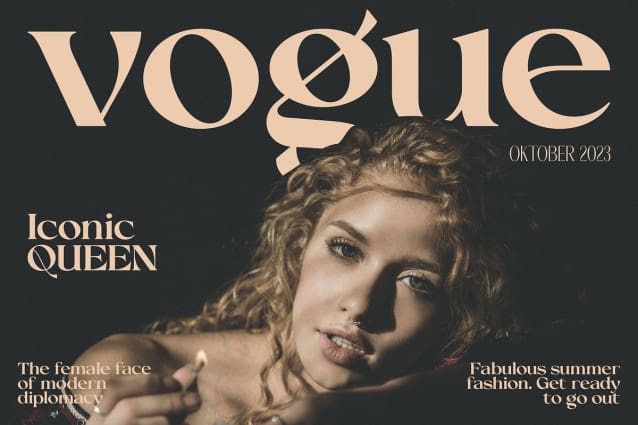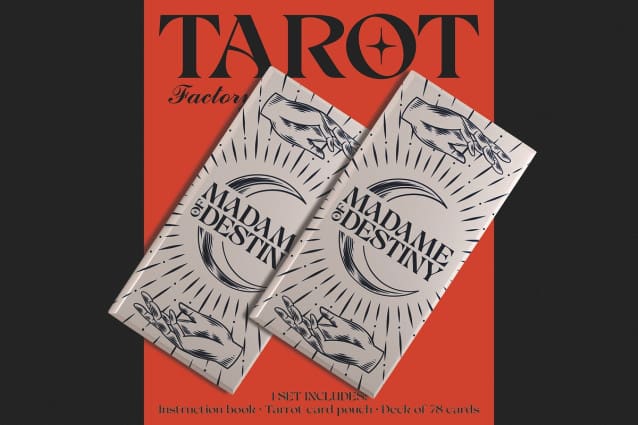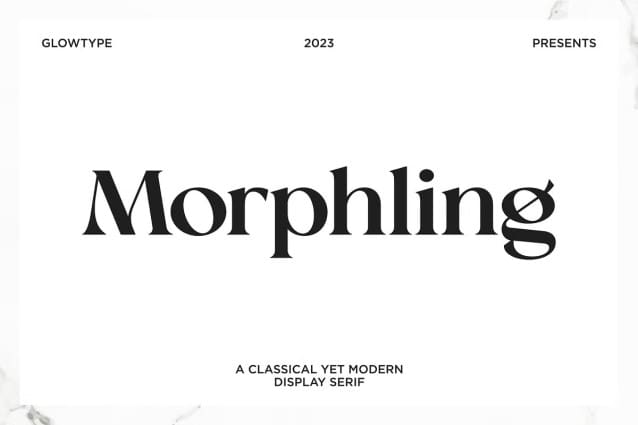
Morphling Font
Morphling Font A Classical yet Modern Display Serif Family created to express things in a classic yet modern way. Inspired by classic modern serif typefaces trend around the world with twist of psychadelic.
Morphling Font is perfect for display purposes such as editorial projects, Logo designs, Music Albums, Apparel Branding, product packaging, magazine headlines, or simply as a stylish text overlay on any background image.